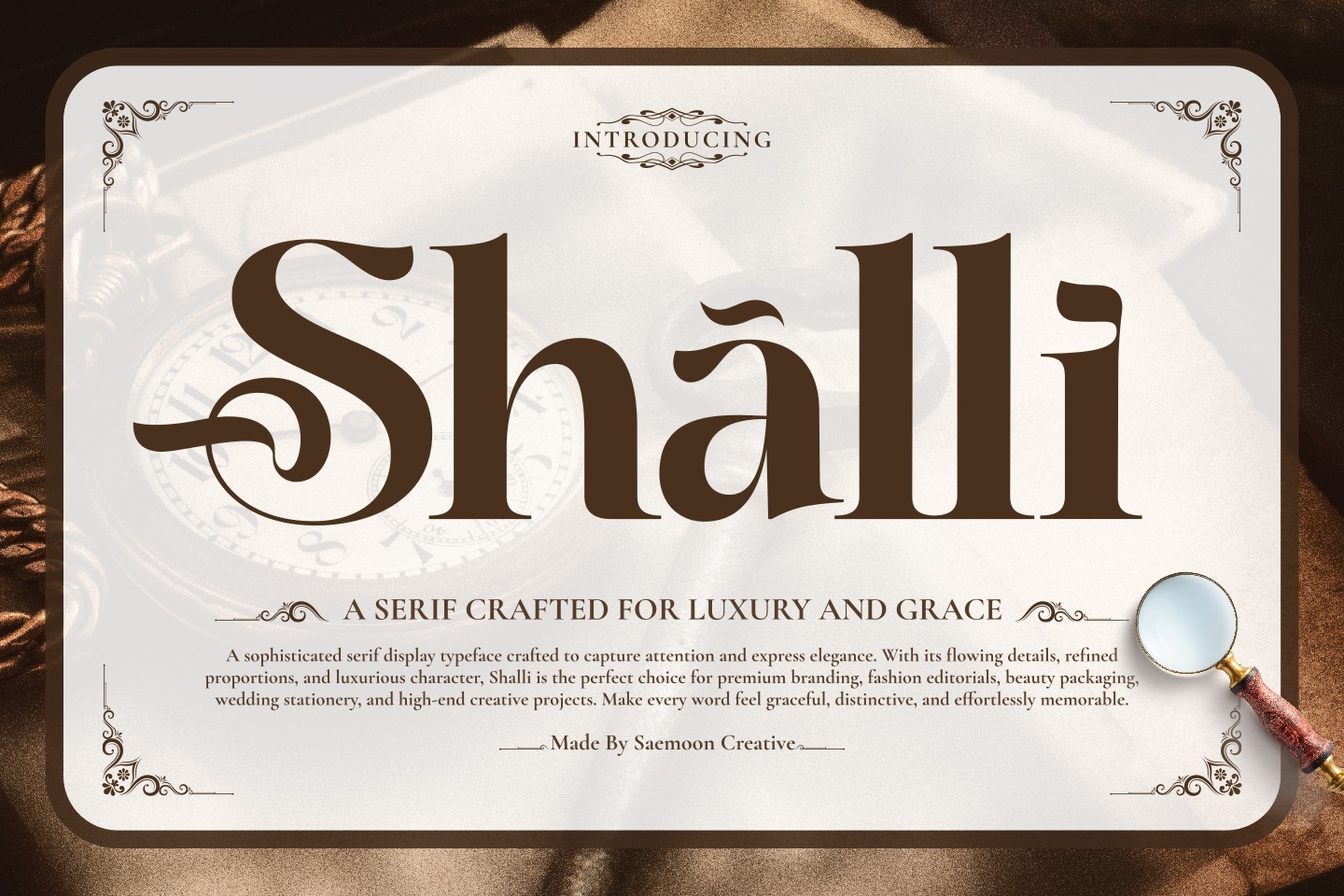
Shalli – Luxury Serif Font
Shalli – Luxury Serif Font is a premium-quality font developed to enhance your work with a polished, modern, and visually elevated look.Shalli is a luxury serif display font that combines timeless elegance with modern sophistication. Designed with refined high-contrast strokes, graceful curves, and beautiful decorative details, this typeface is perfect for creating premium branding and eye-catching typography.
Its elegant character makes Shalli ideal for fashion brands, cosmetic packaging, luxury logos, wedding invitations, editorial layouts, social media graphics, and high-end product designs. Whether you’re working on a classic or contemporary project, Shalli brings a graceful and memorable touch to every design.
Ligatures
Stylistic Alternates